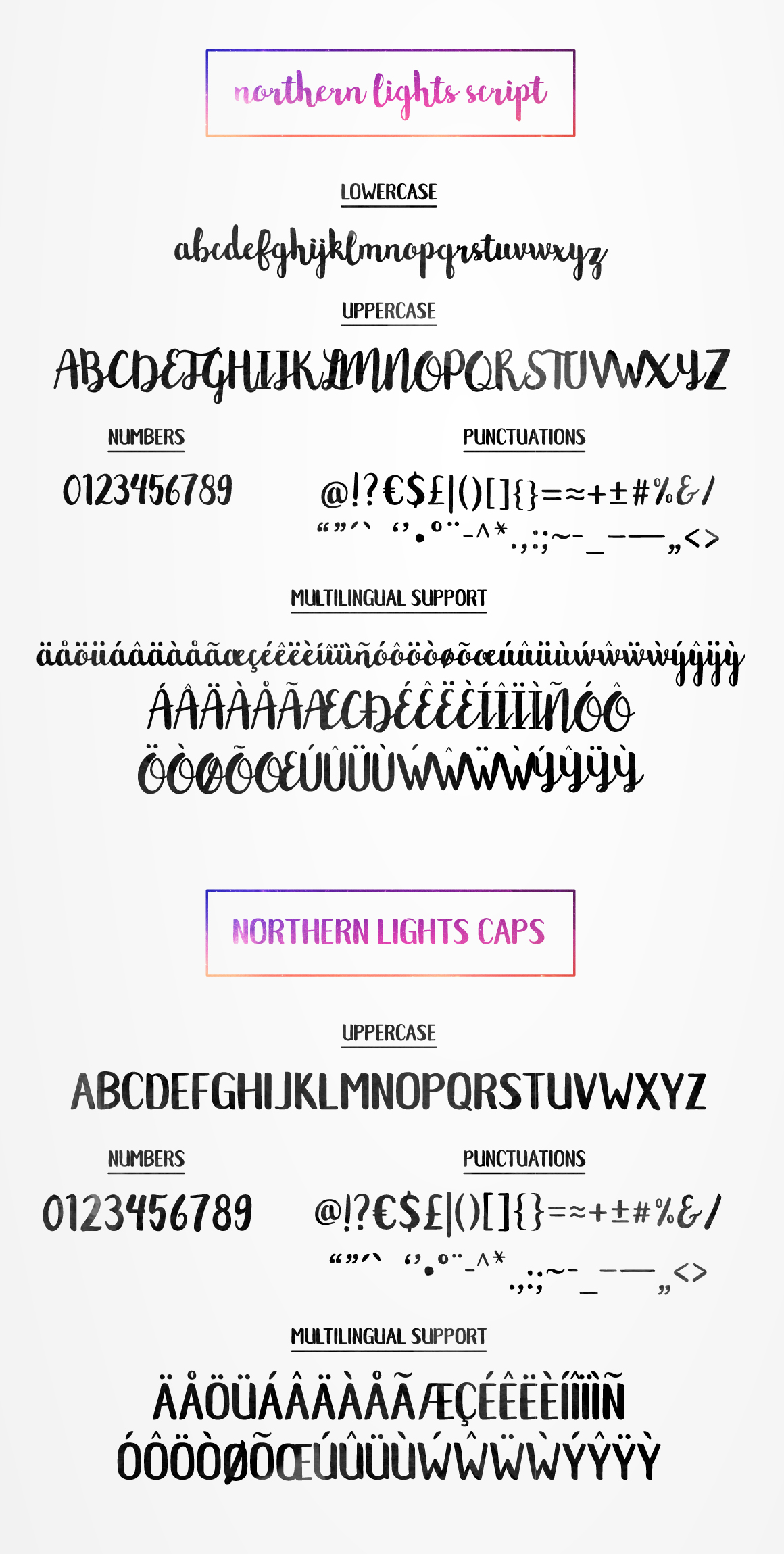
Northern Lights Script Font
Northern Lights Script By Mats-Peter Forss
Create amazing and inspiring Instagram quotes, Facebook posters, modern logos, greeting cards and prints with this Scandinavian inspired handmade brush font.